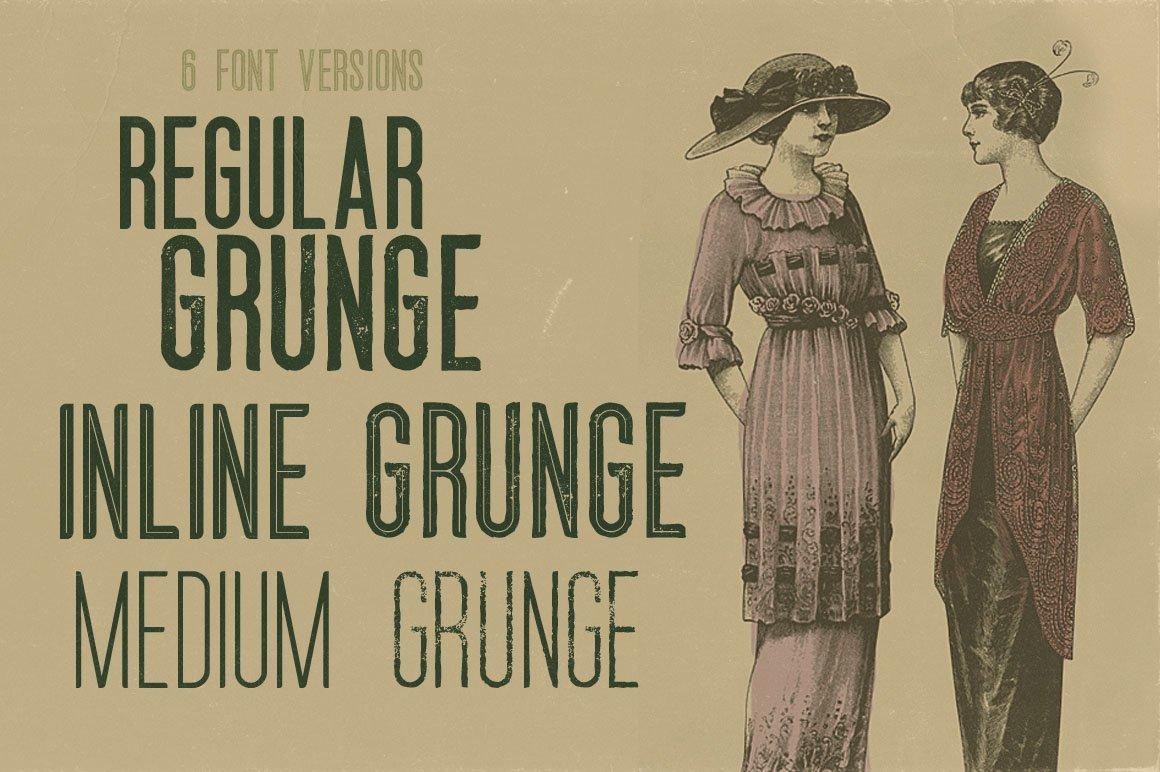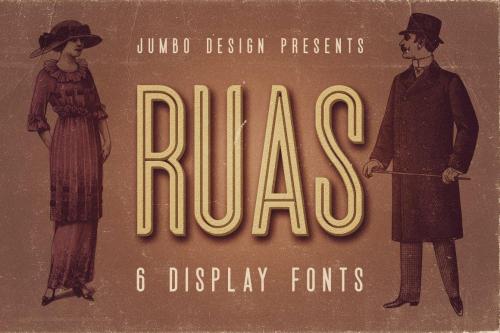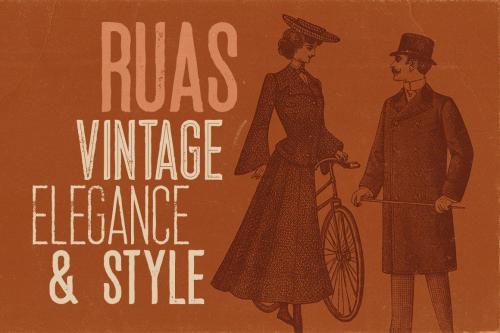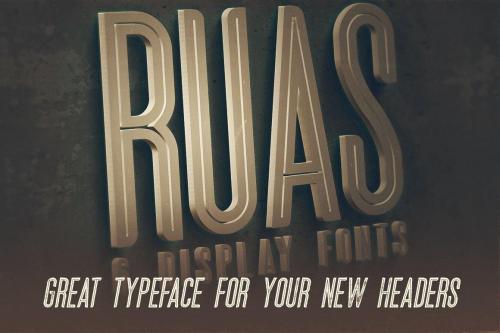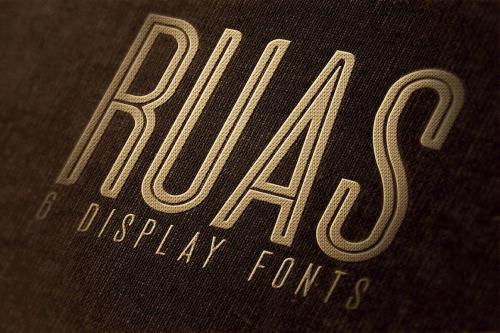
Ruas Vintage Style Font is Unique retro or vintage style custom sans serif font with 6 styles: regular and grunge, inline and inline grunge, medium and medium grunge.
- Designer: JumboDesign